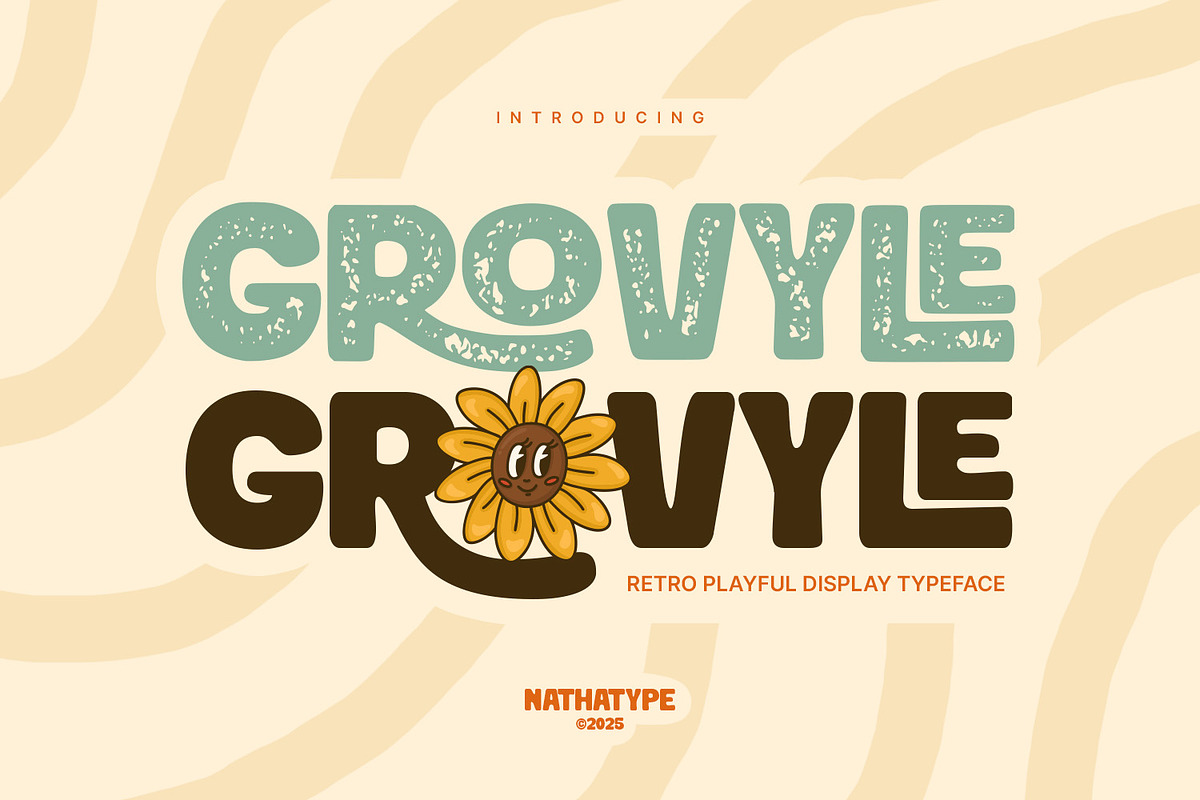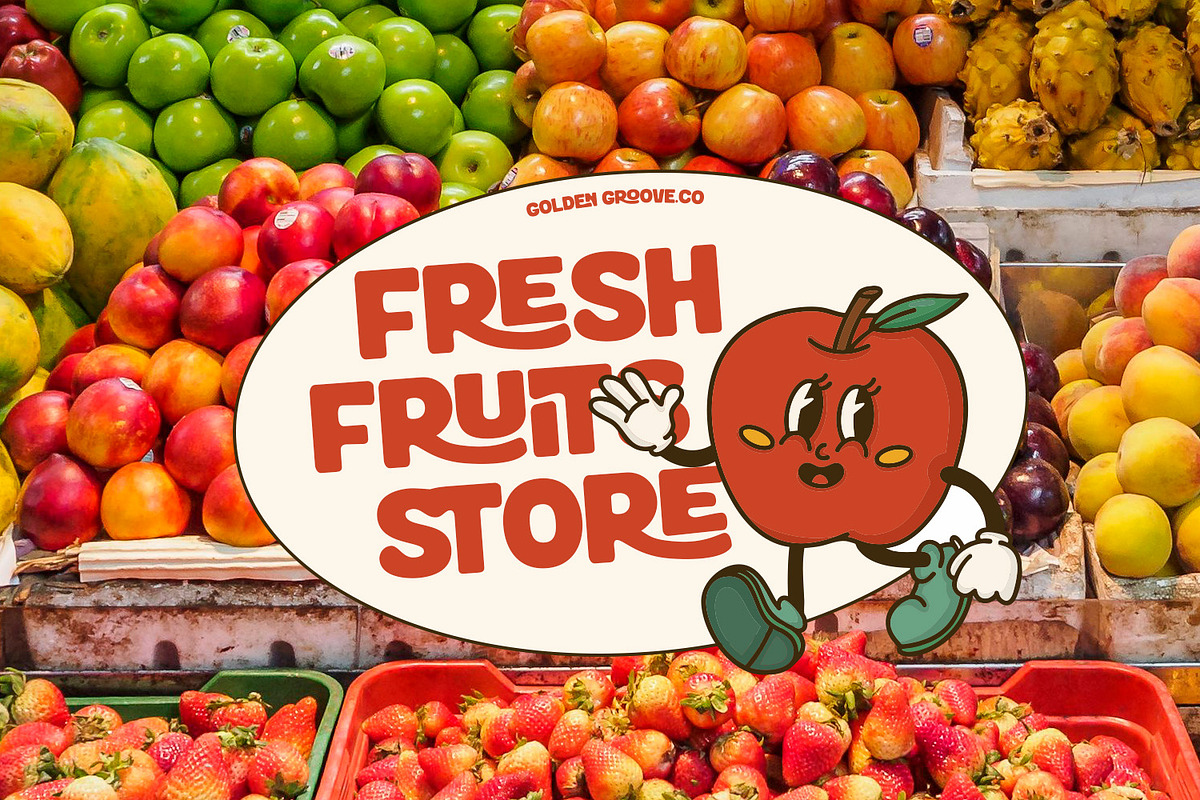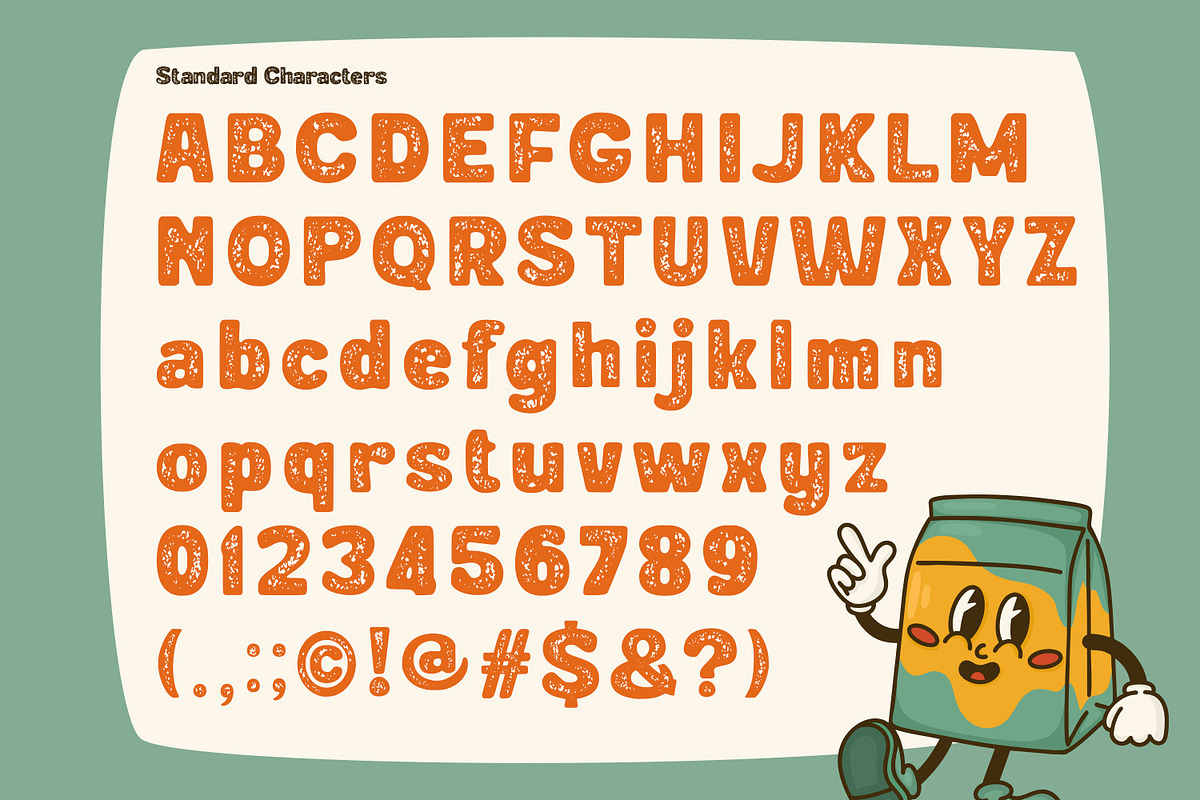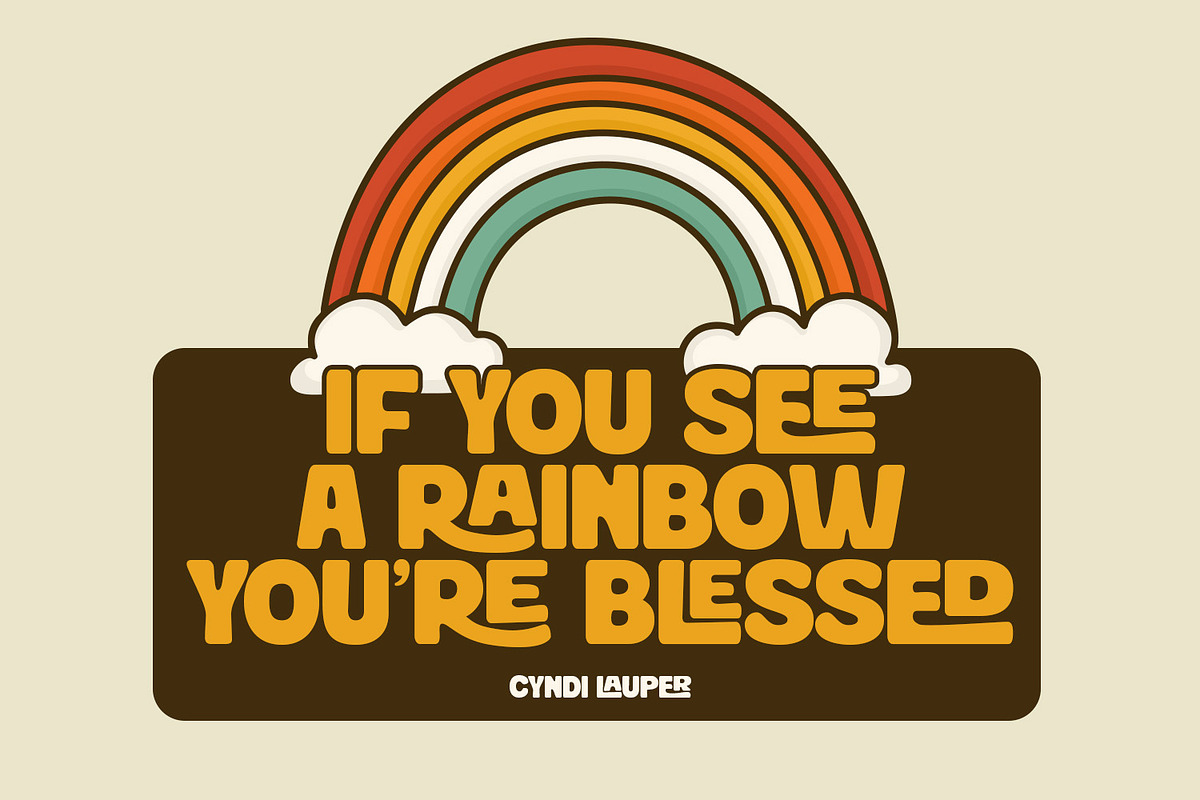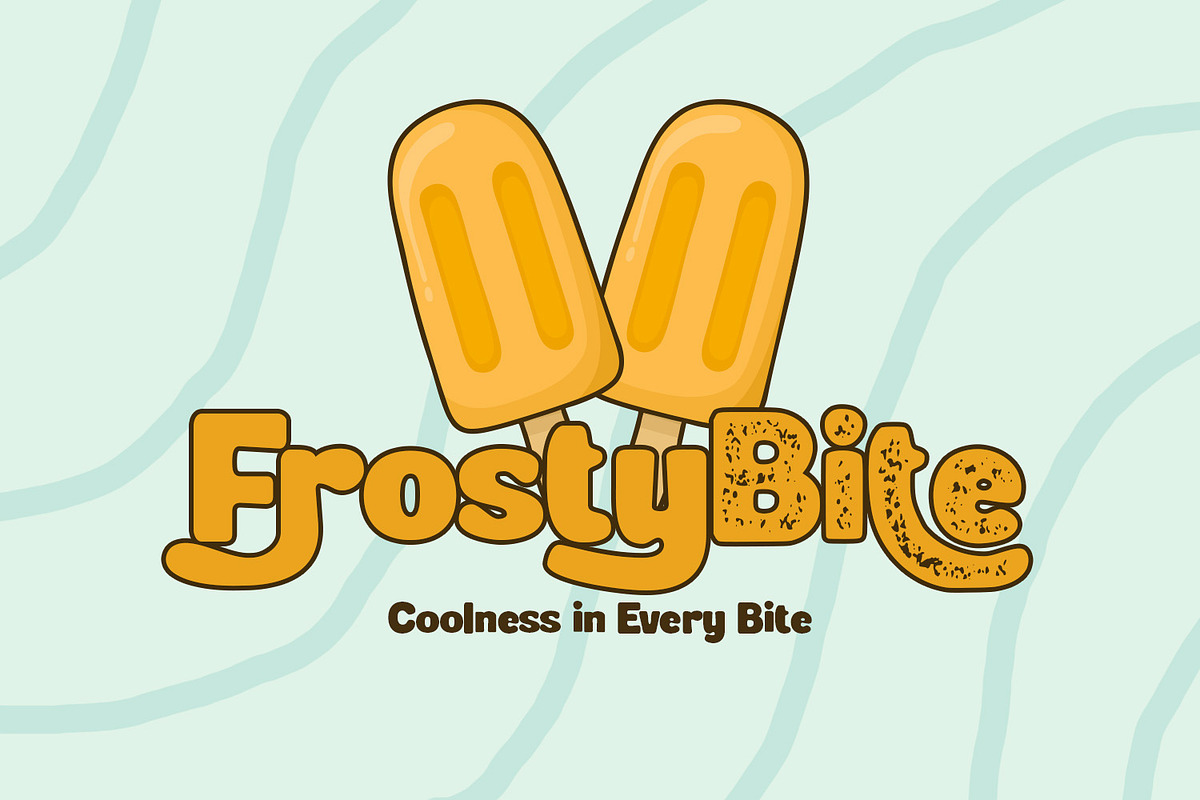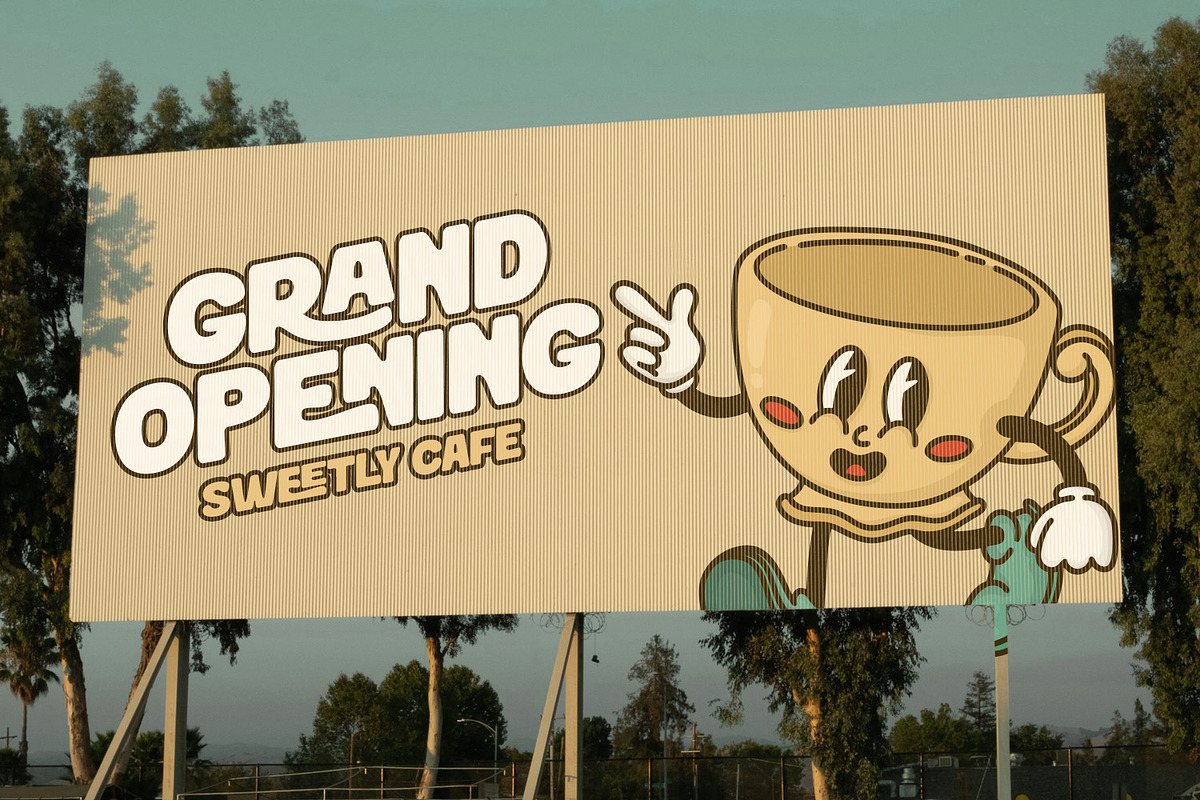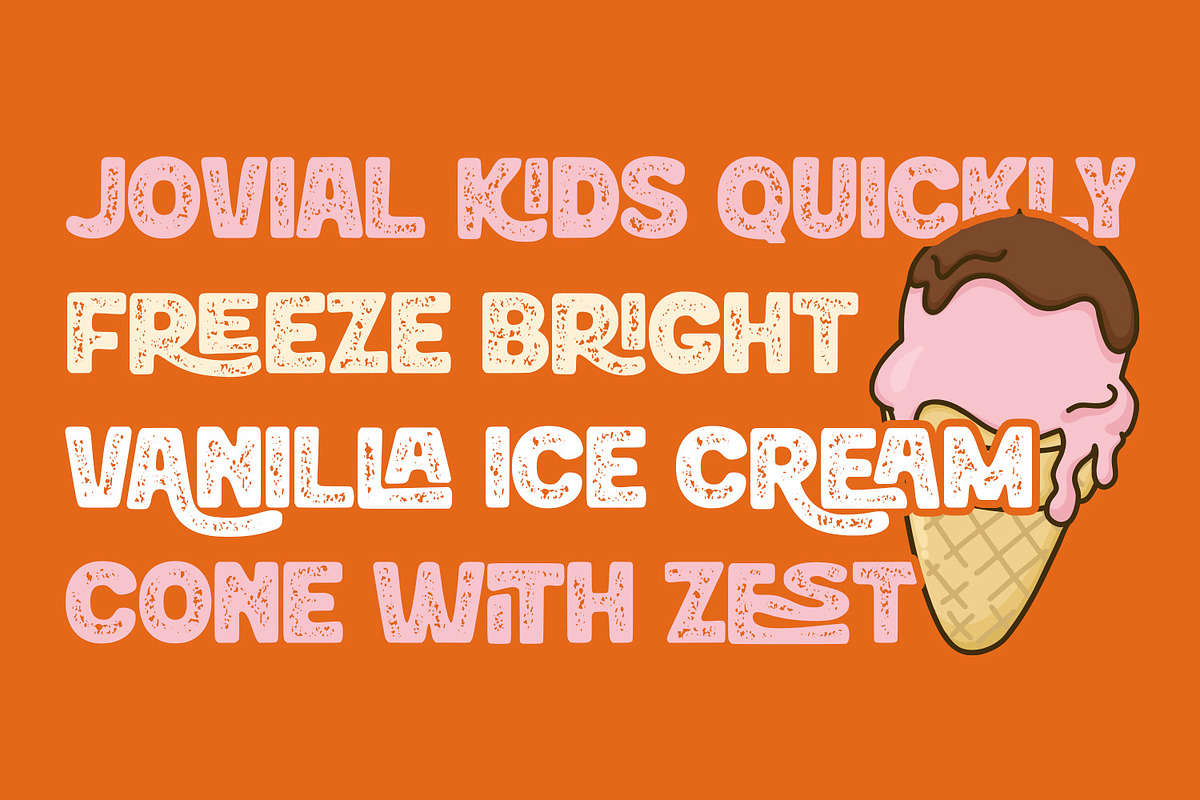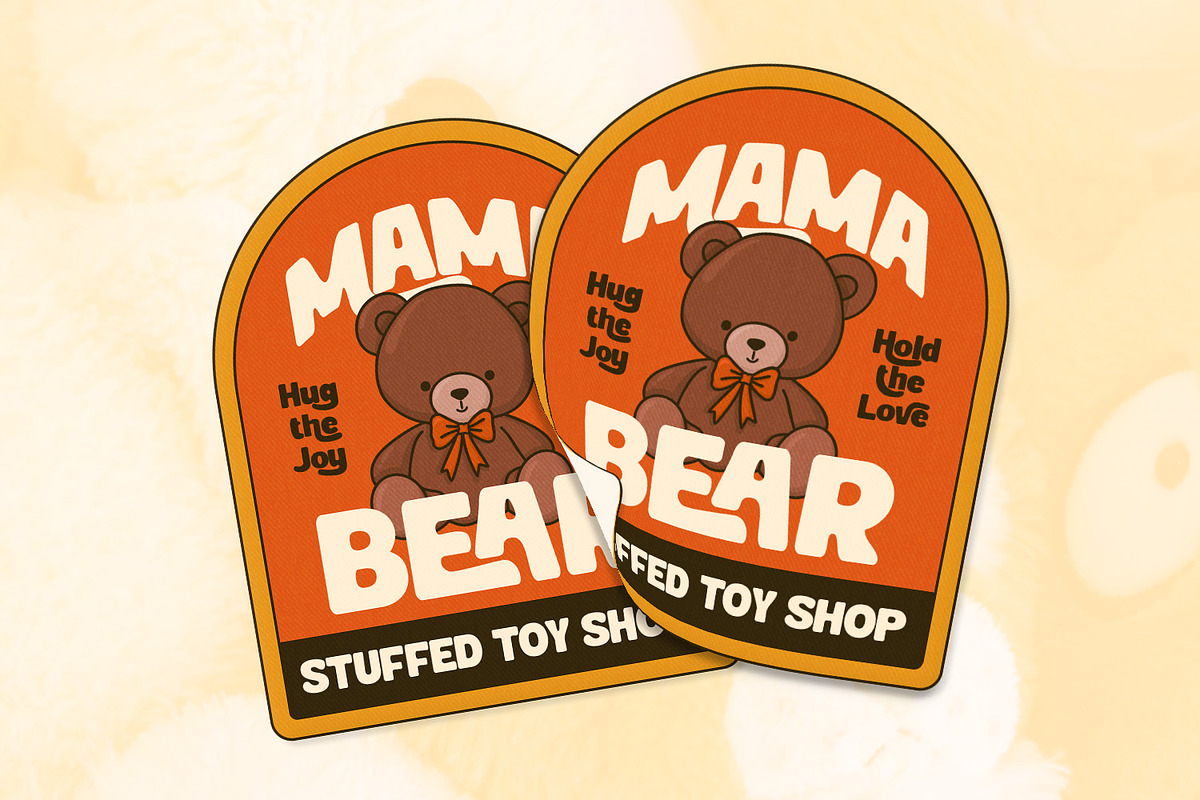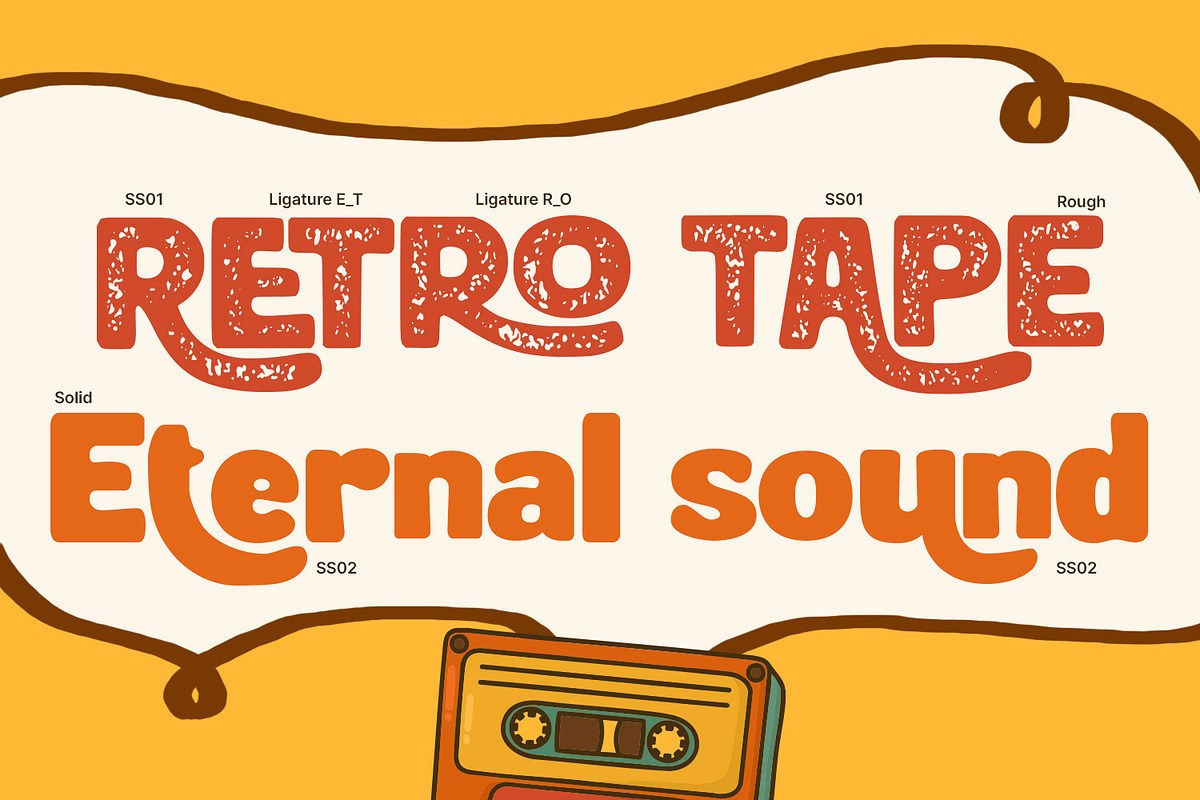
Grovyle
Grovyle is a bold retro display font that brings classic vintage aesthetics into modern design. Inspired by retro signage and old-school typography, Grovyle combines nostalgic charm with a powerful presence, making it perfect to create attention and personality. This font comes in two distinct styles – Solid and Rough, giving you the flexibility to create both clean, bold designs and authentic, textured looks. With its strong letterforms and bold weight, Grovyle ensures your message looks confident and memorable. In addition, enjoy the features here.
- Stylistic Sets
Grovyle fits in branding, packaging, quotes, logos, posters, and many more designs. Find out more ways to use this font by taking a look at the font preview.